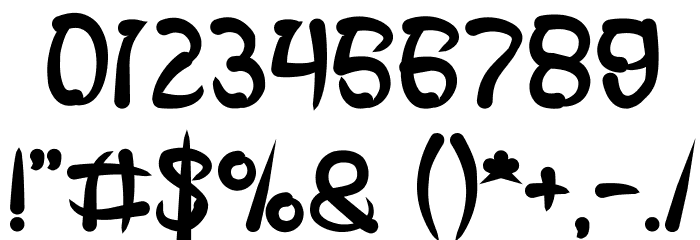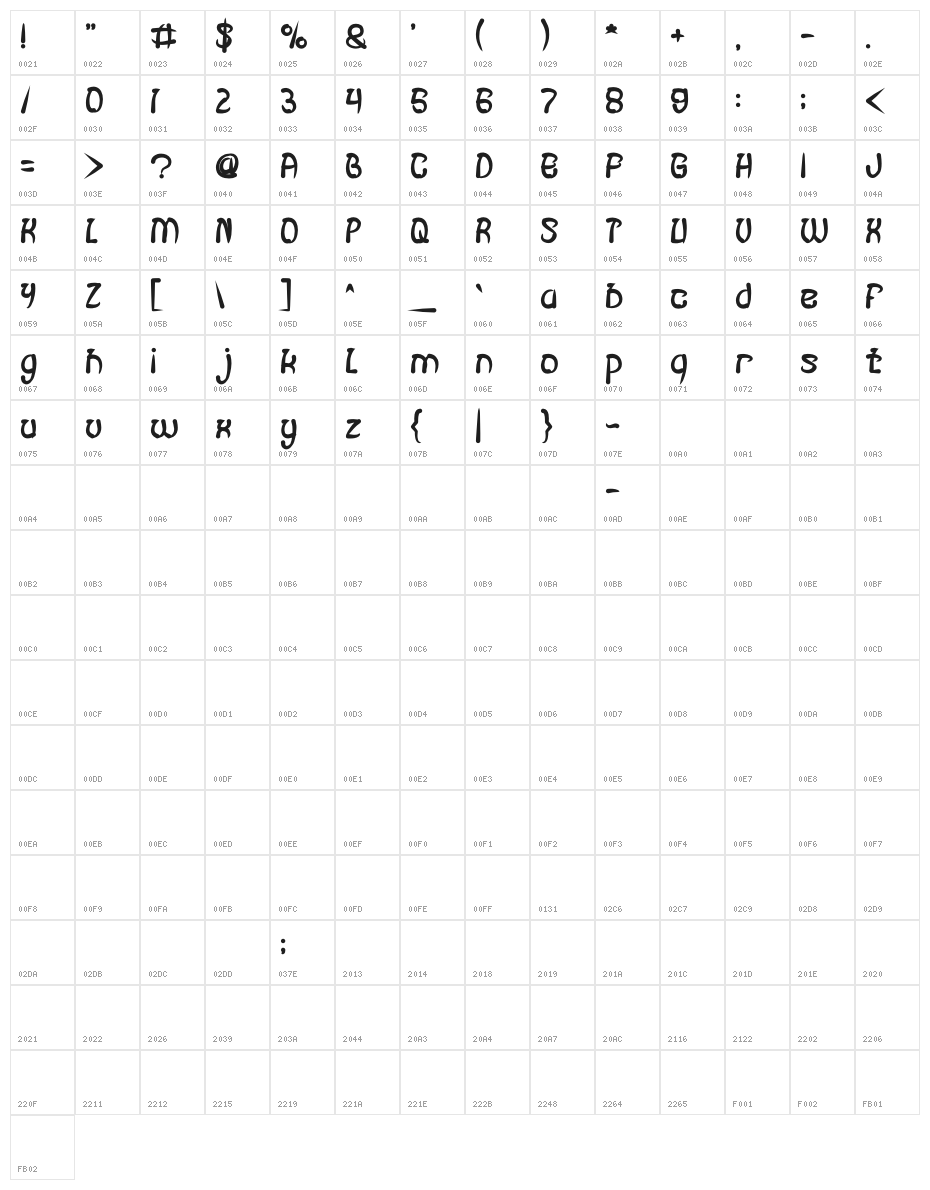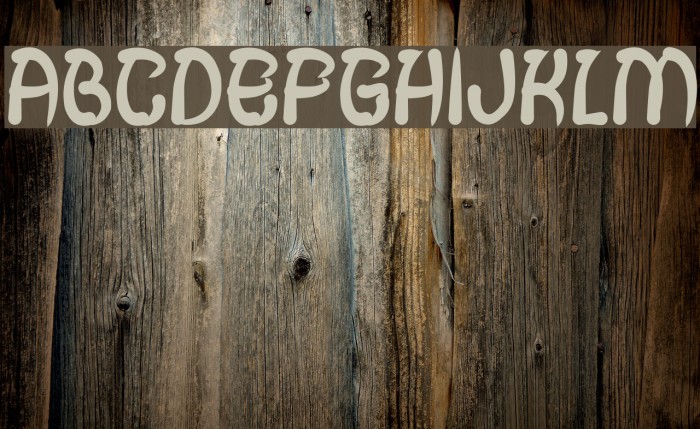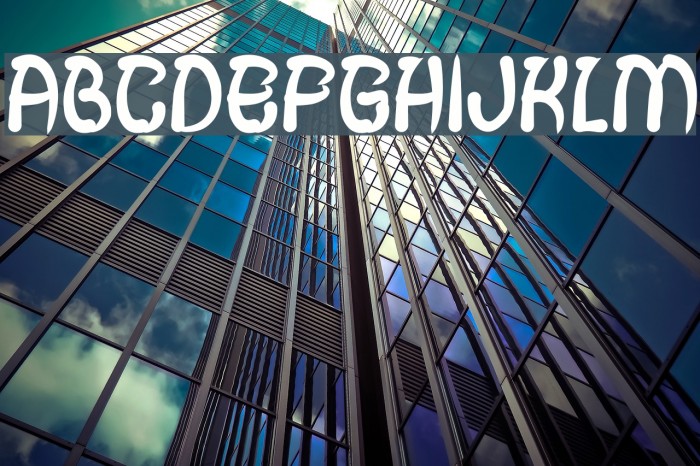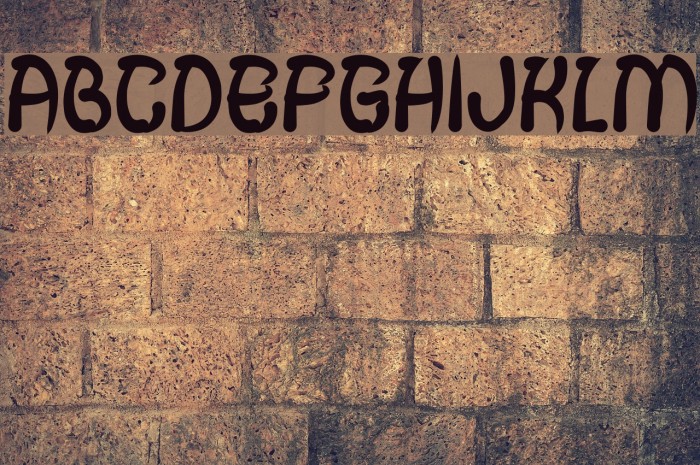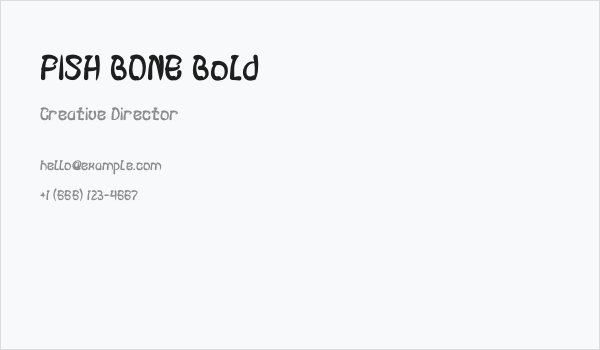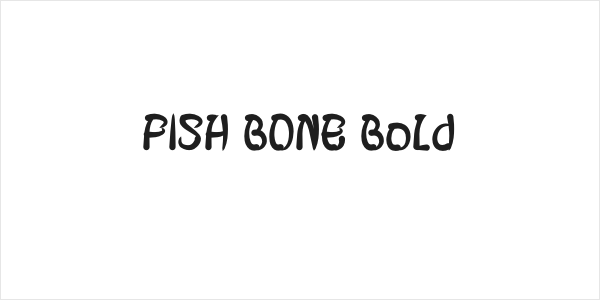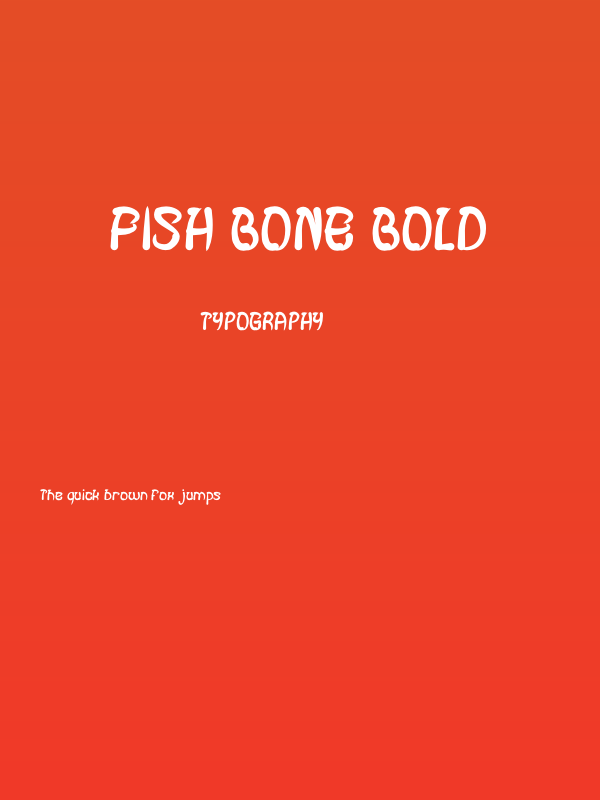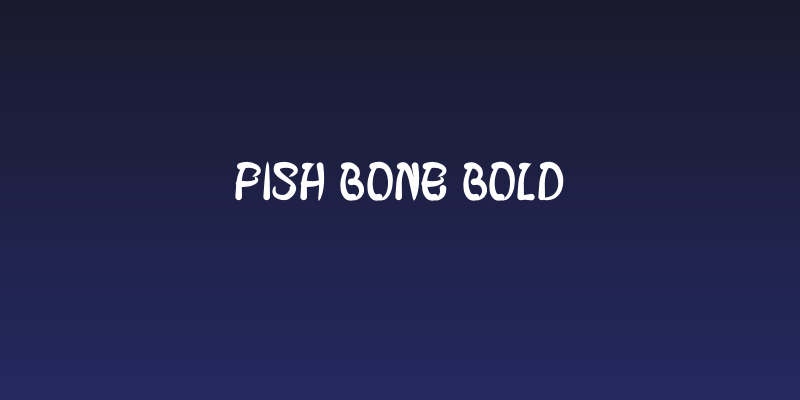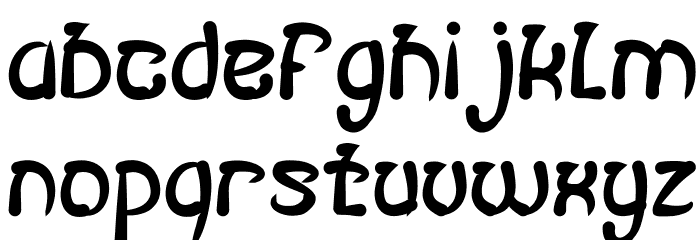
FISH BONE Bold Font
FISH BONE Bold Description
This font features a playful and bold style with a unique, hand-drawn appearance. The characters are rounded and slightly irregular, giving them a whimsical and organic feel. The uppercase and lowercase letters maintain a consistent style, with a noticeable thickness that enhances readability. The numbers and special characters follow the same design principles, ensuring a cohesive look across all elements. This font's distinctive style makes it stand out, making it suitable for creative and informal projects.
| Overall Style | Playful, Whimsical, Hand-drawn |
| Proposed Projects | Ideal for children's books, playful branding, posters, and creative designs. |